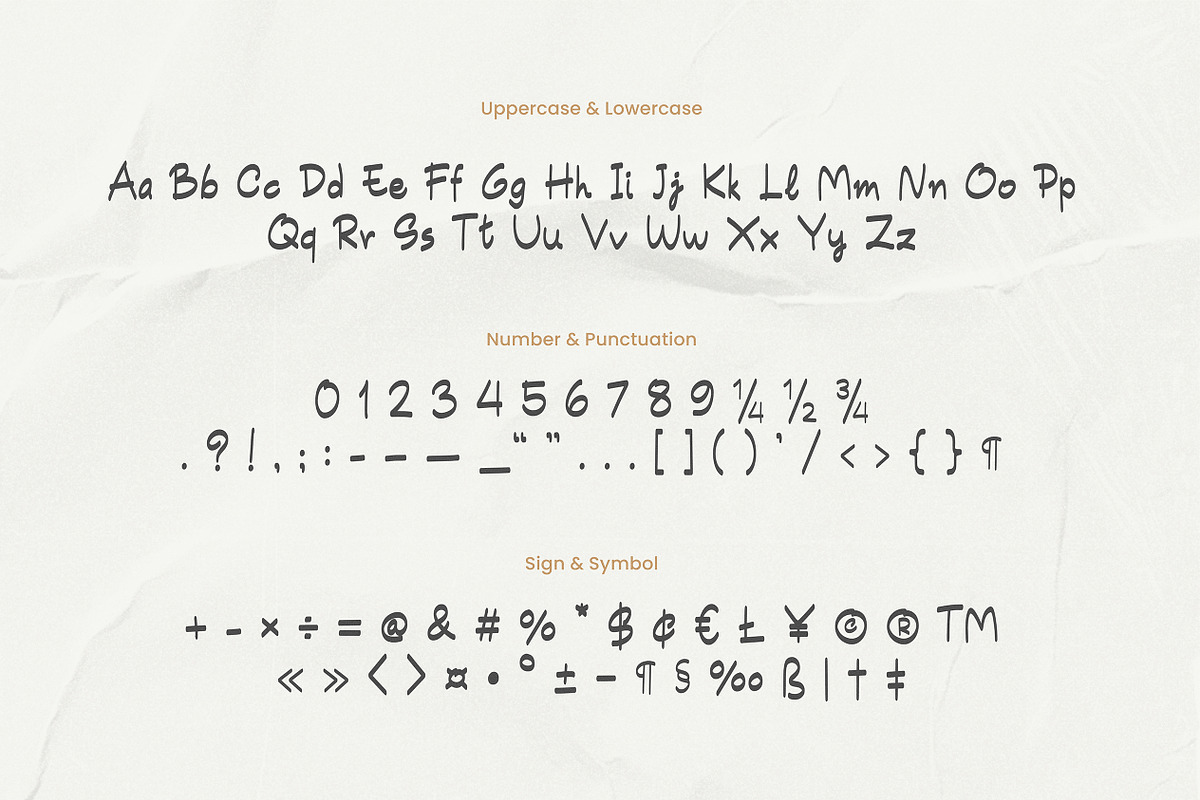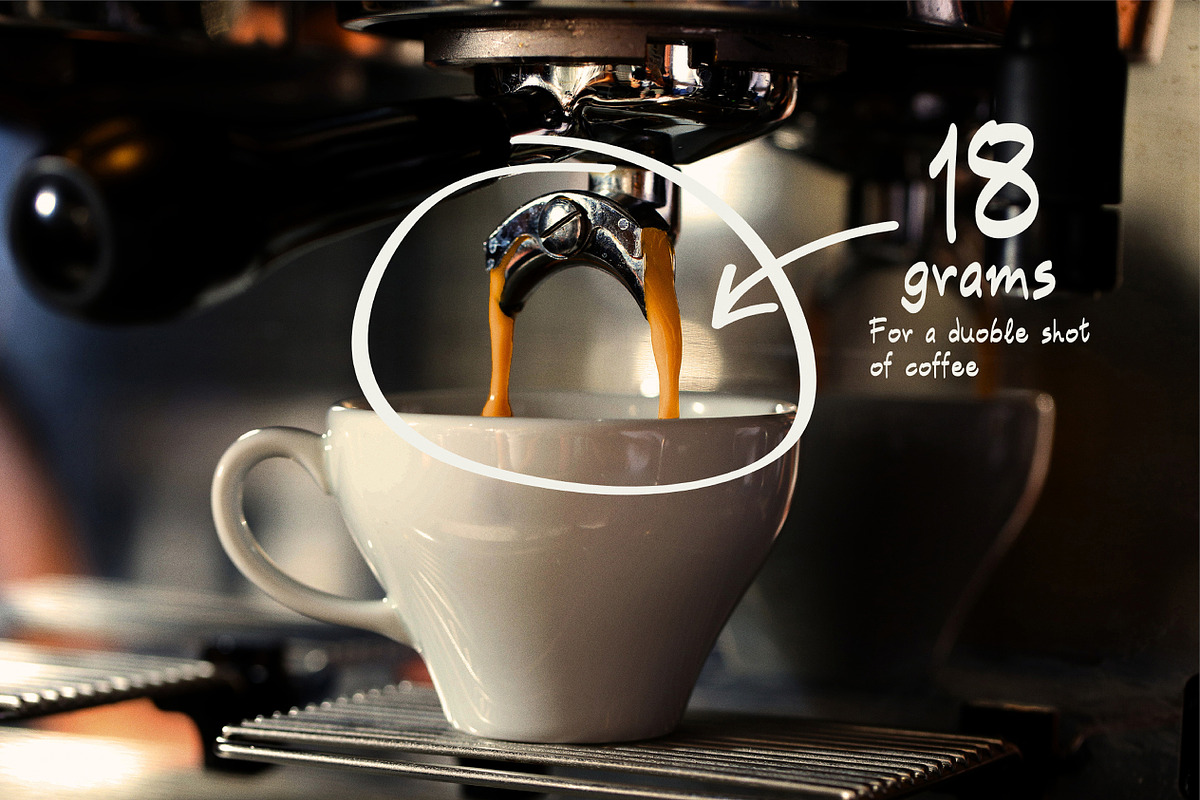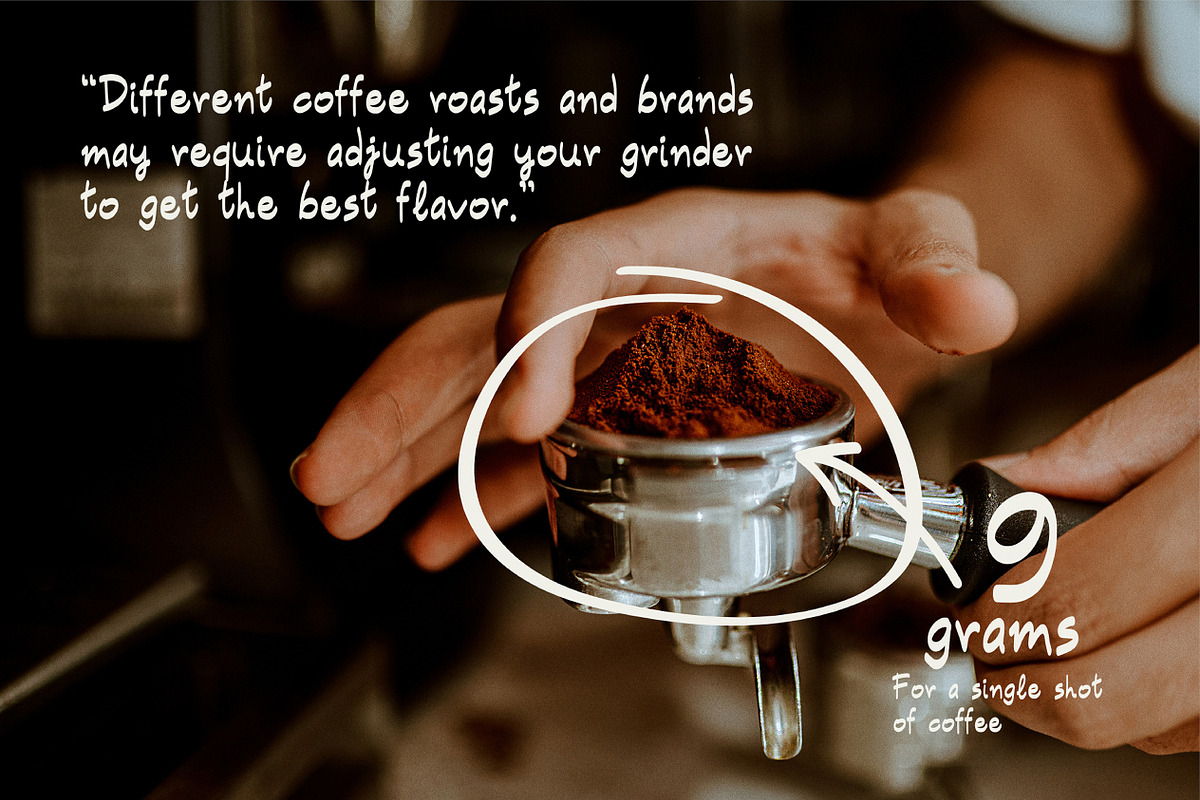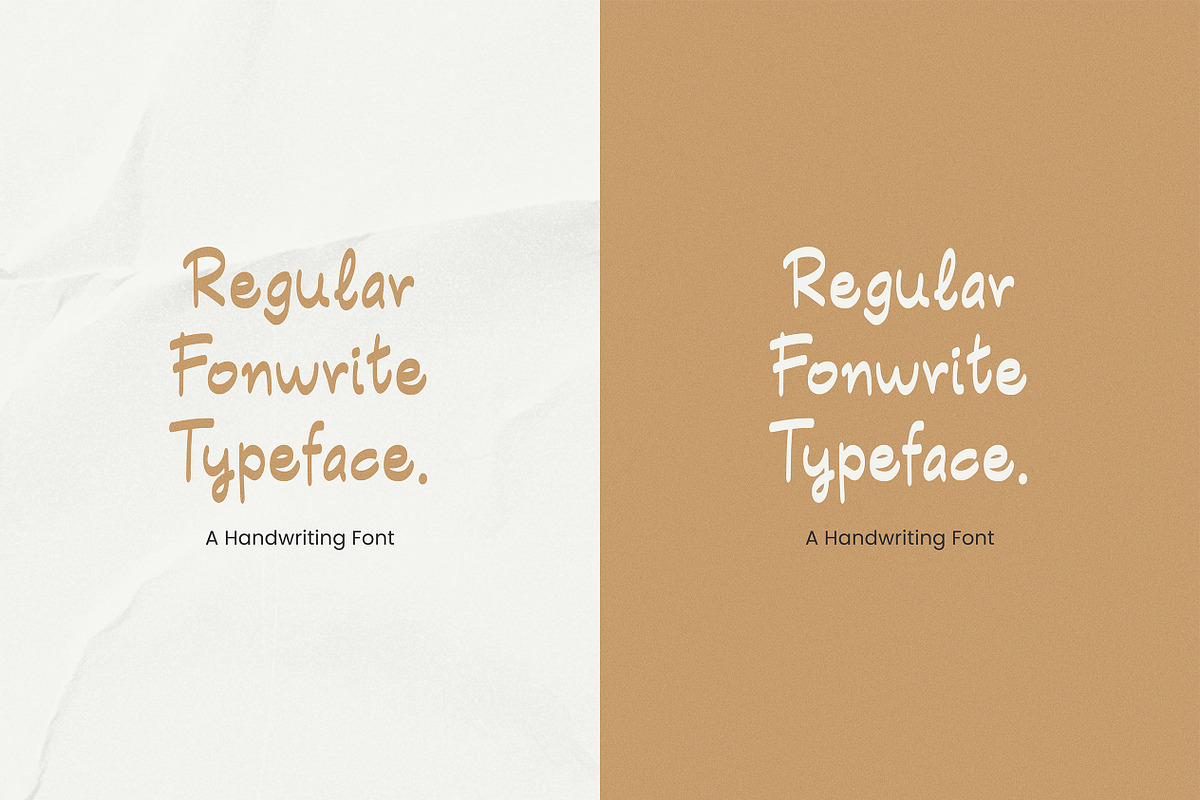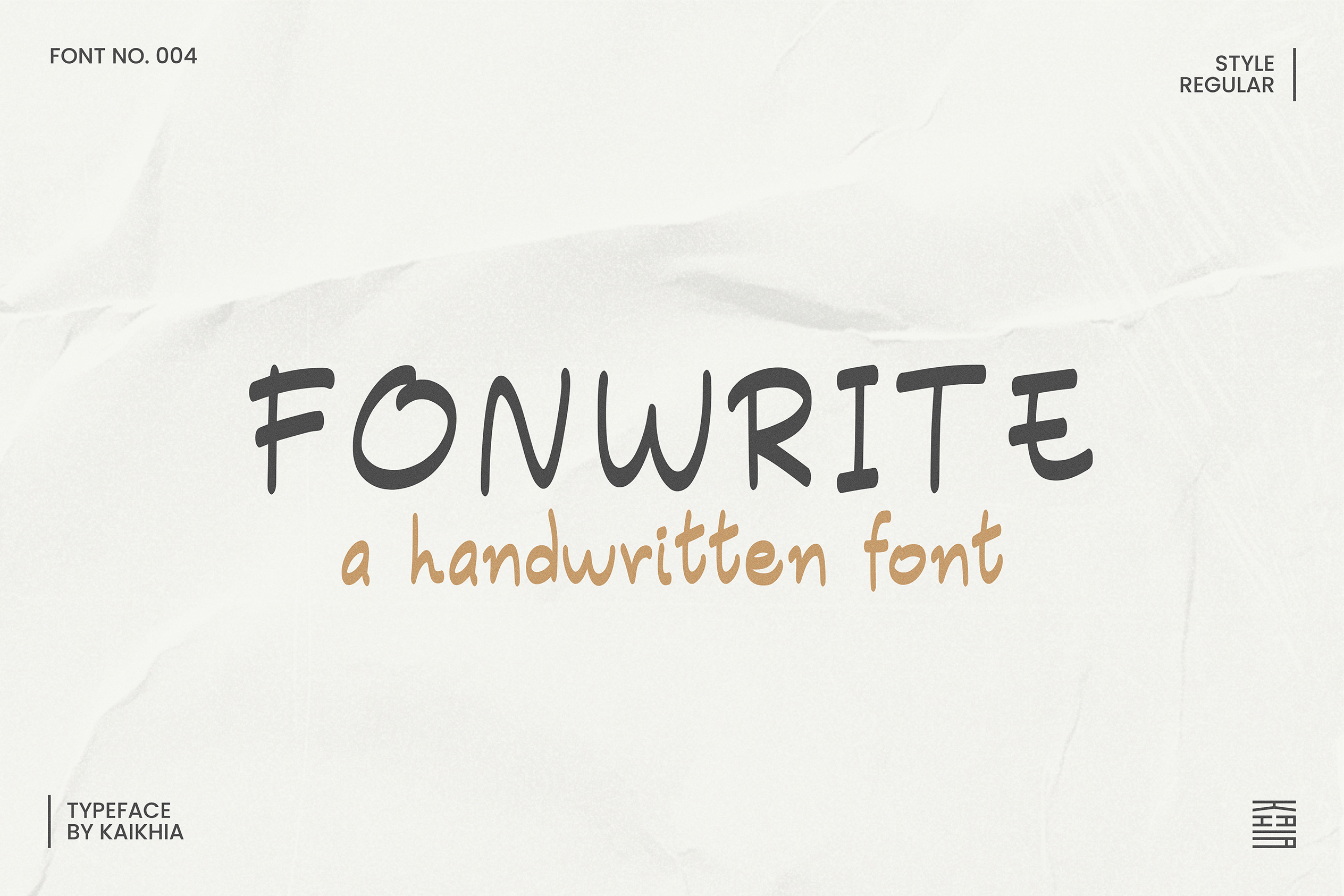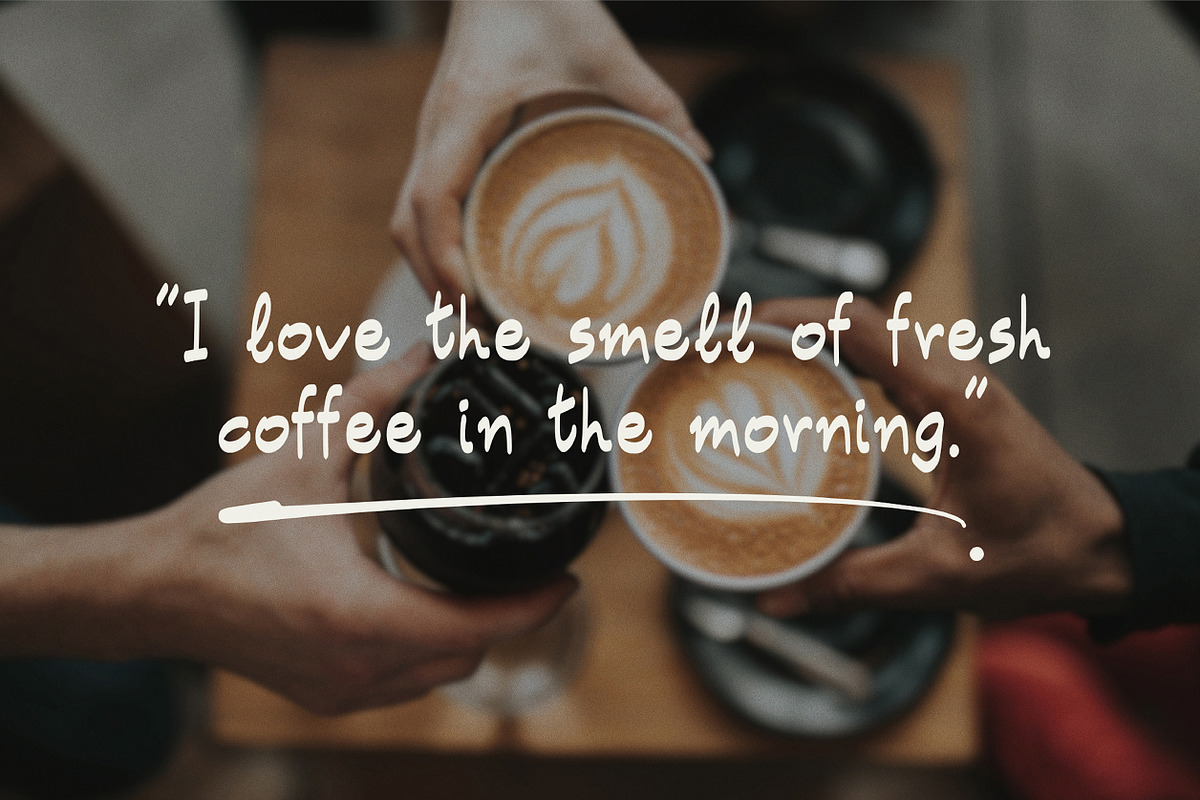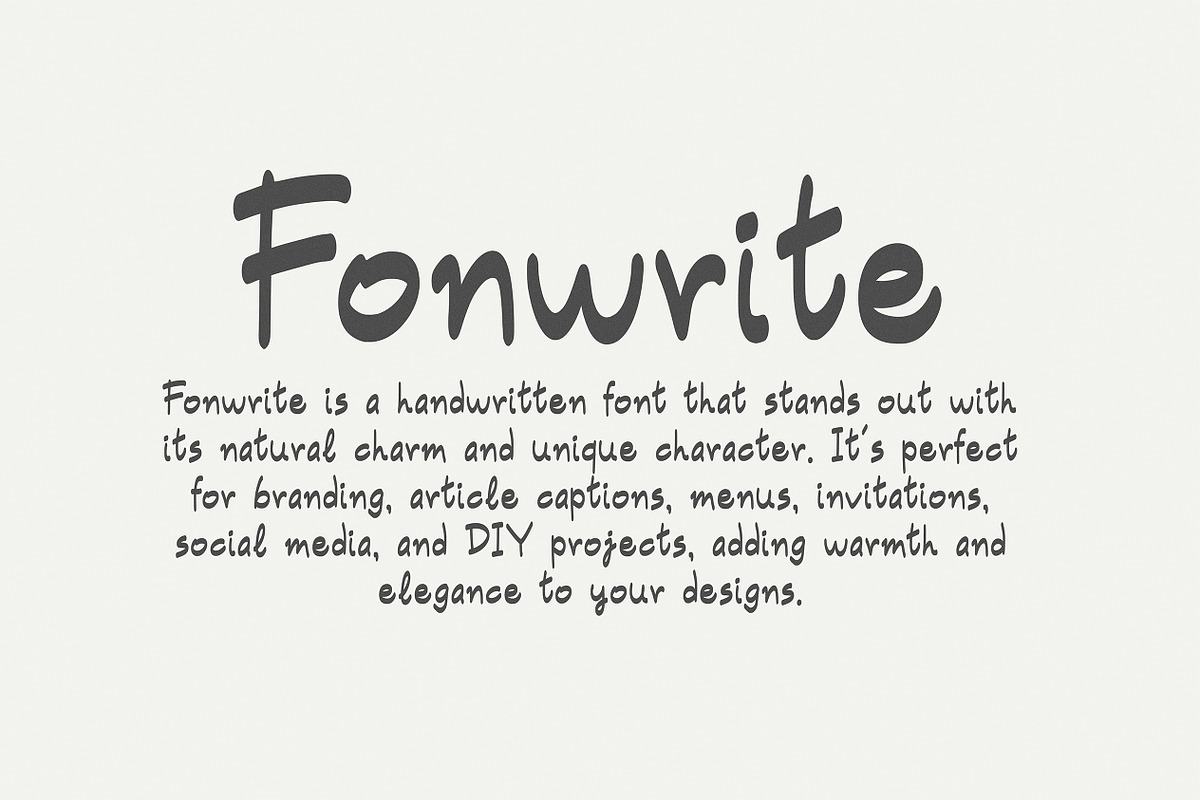
Fonwrite, Handwritten Font.
Introducing our new product, Fonwrite is a handwritten font that stands out with its natural charm and unique character. It's perfect for branding, article captions, menus, invitations, social media, and DIY projects, adding warmth and elegance to your designs.